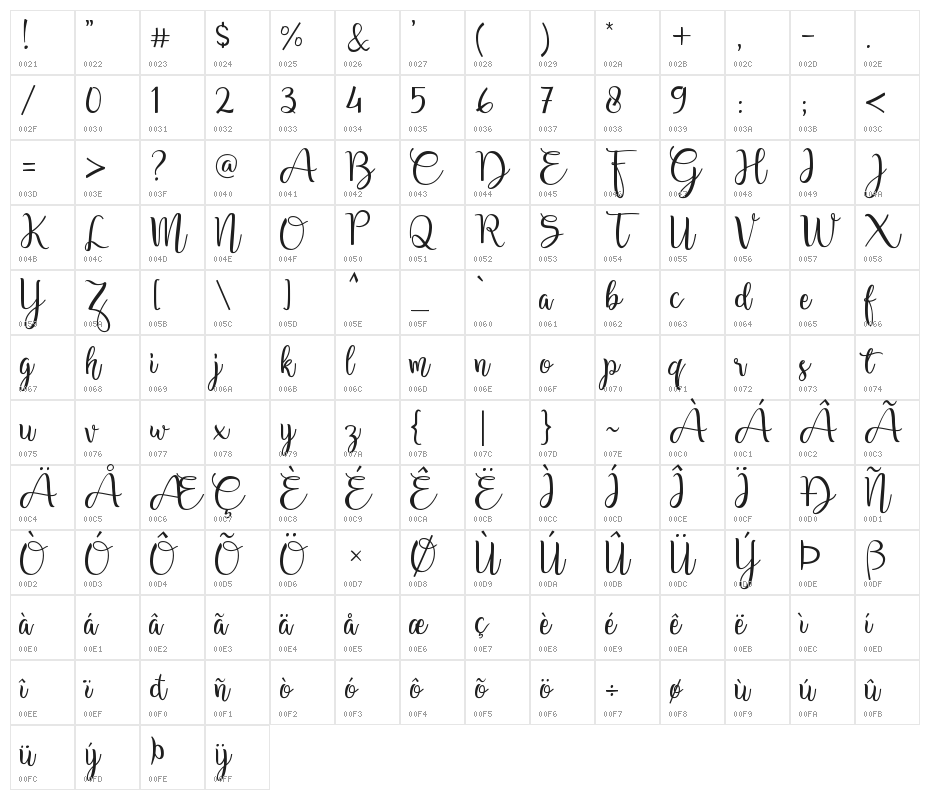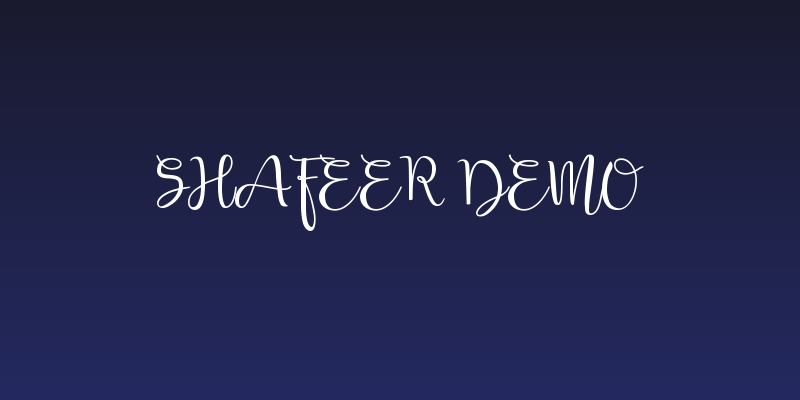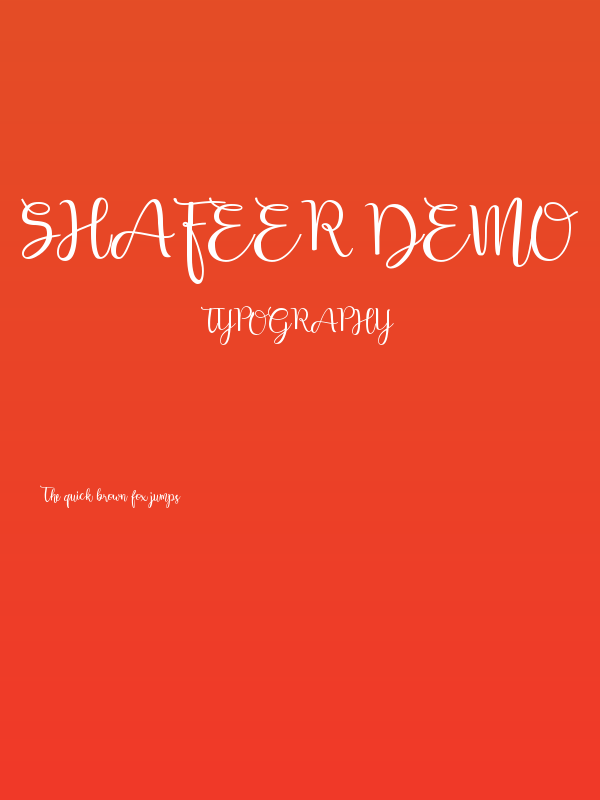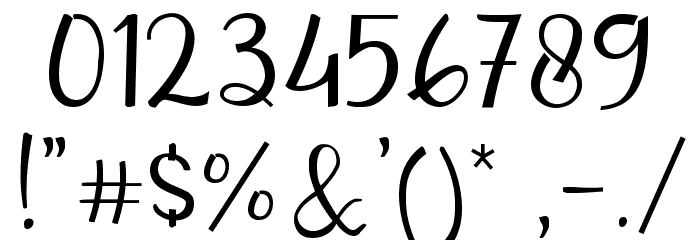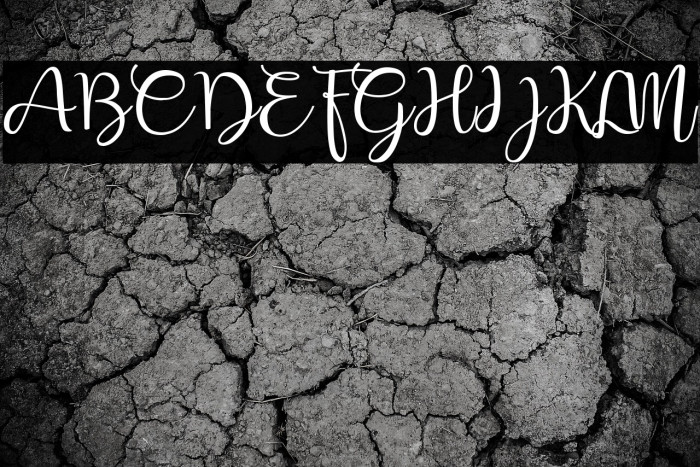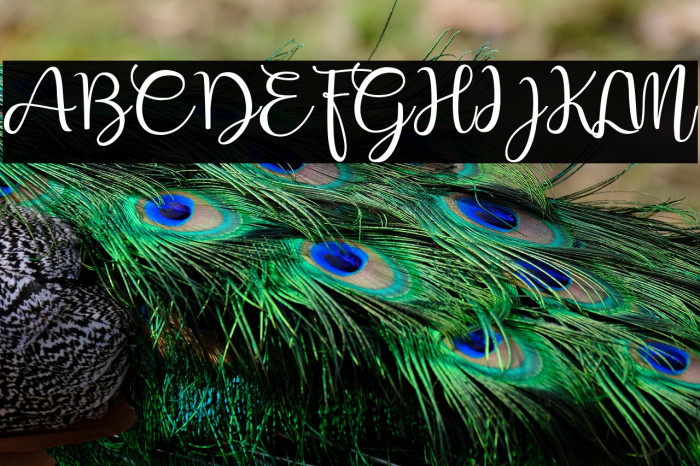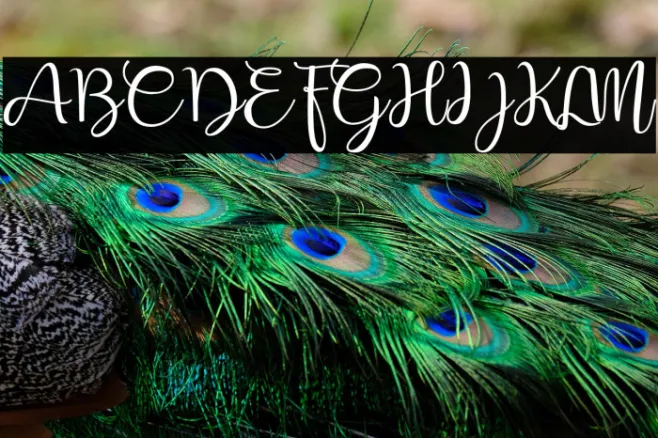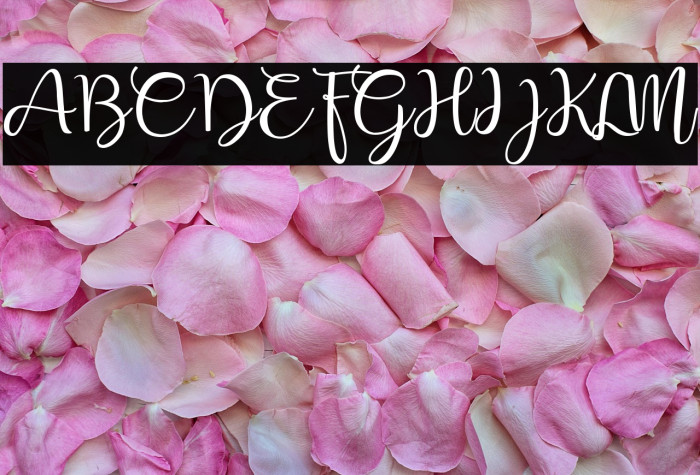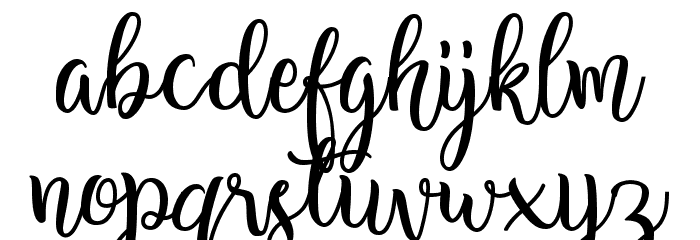
Shafeer demo Font
Shafeer demo Description
This font features a lively and flowing script style, characterized by its elegant and cursive letterforms. The uppercase letters exhibit a playful yet sophisticated flair, with smooth curves and occasional loops that add a sense of movement. The lowercase letters maintain a consistent style, with rounded edges and a slightly informal touch, making them highly legible. The numerals are crafted with the same fluidity, ensuring they blend seamlessly with the alphabet. Special characters are thoughtfully designed to match the overall aesthetic, providing a cohesive look across all text elements. This font's dynamic and stylish appearance makes it ideal for creative projects that require a personal and artistic touch.